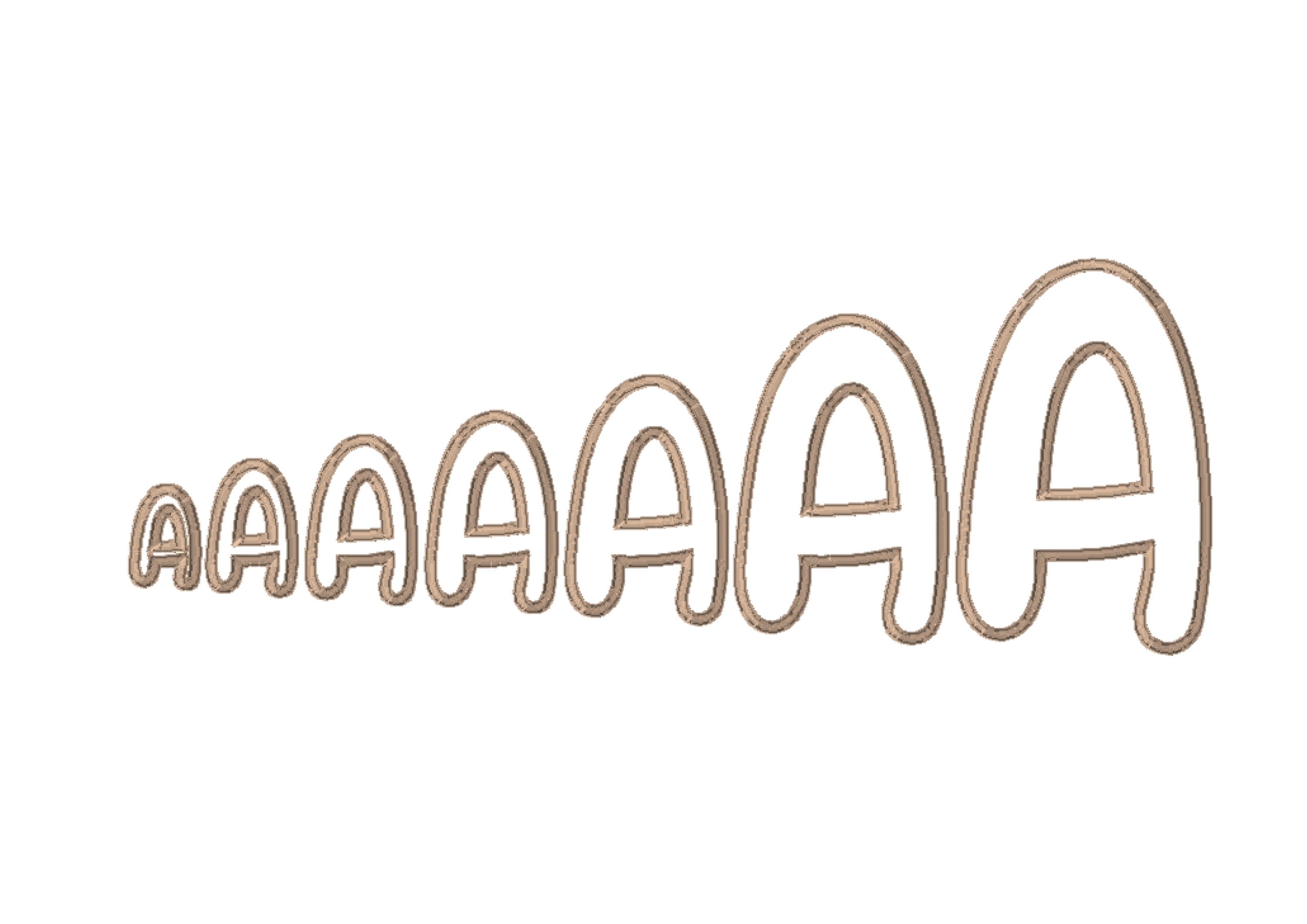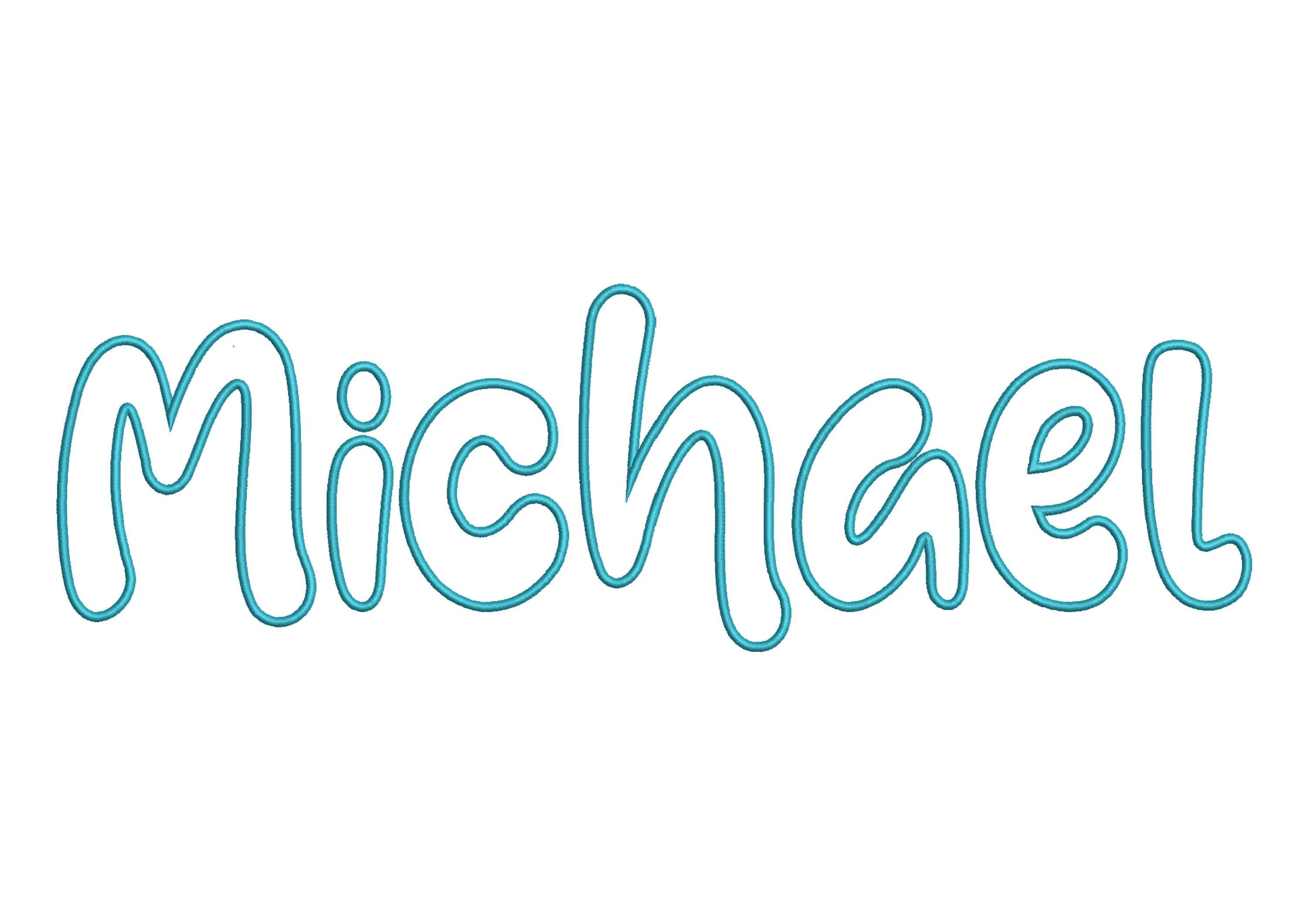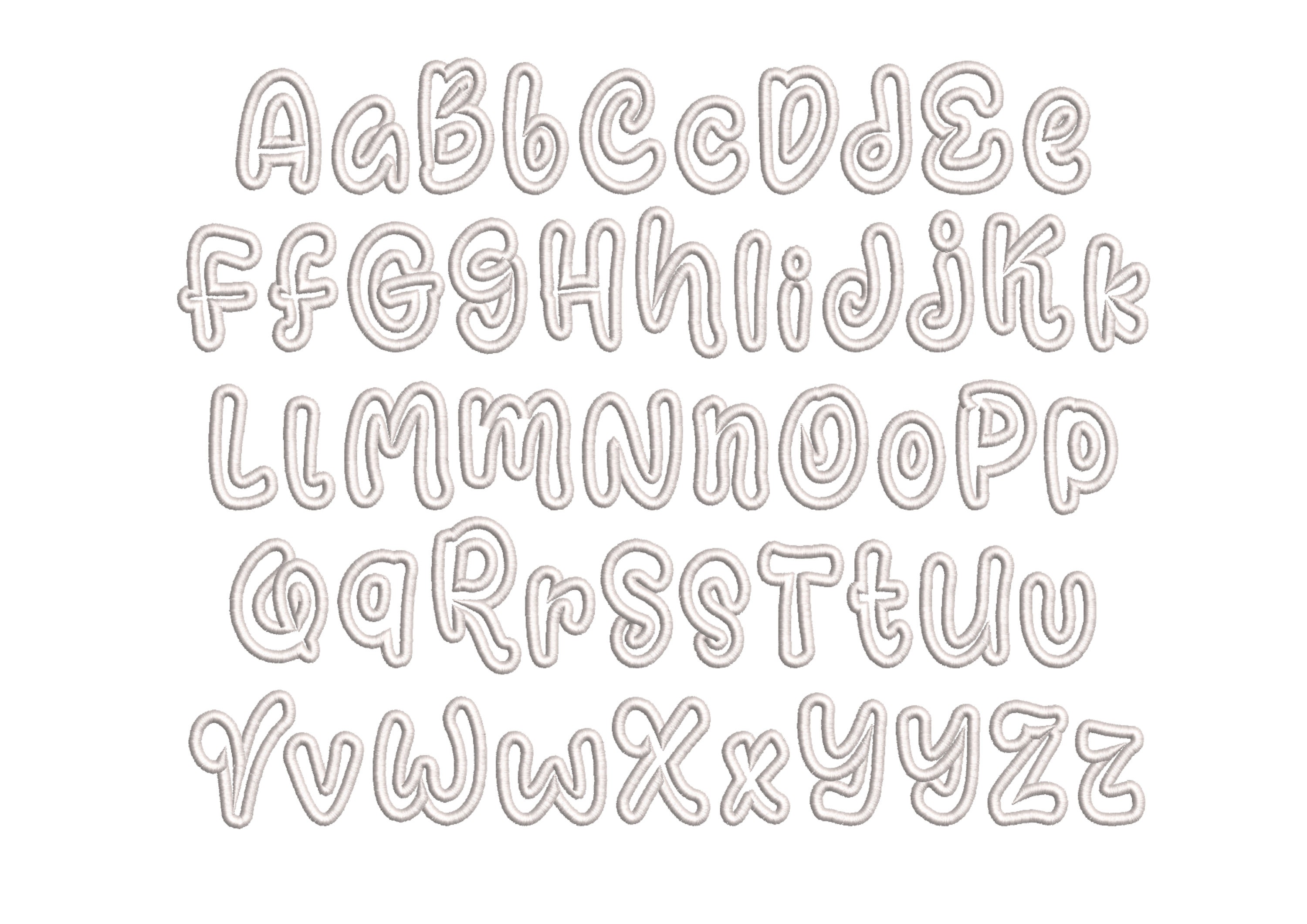
Retro Bubble style Font Menthol Applique alphabet machine embroidery designs assorted sizes from 1.6 thru 5.9 inches kids baby monogram, BX
Entire alphabet uppercase and lowercase letters Aa-Zz, numbers 0-9, and punctuation.